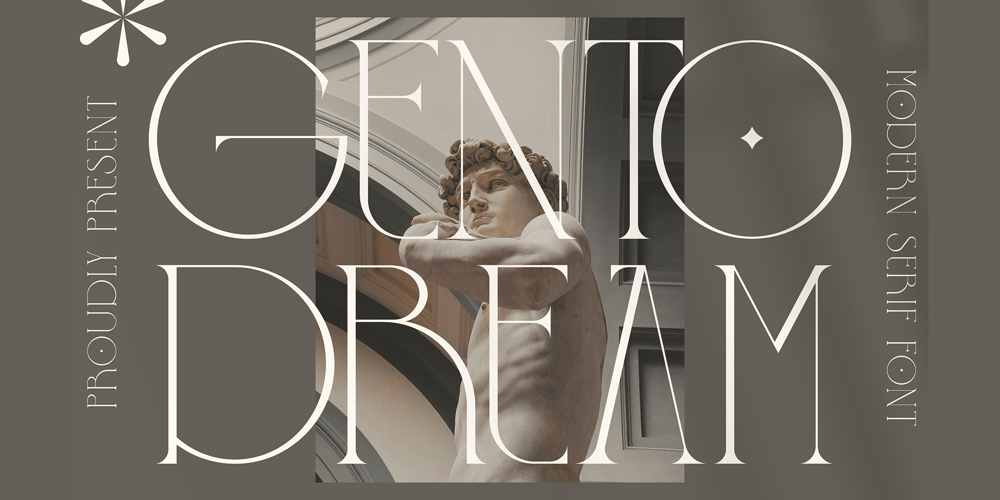
GENTO DREAM Font Family was designed by Heru Utama Putra and published by Letterena Studios. GENTO DREAM contains 2 styles and family package options. Gento Dream is a serif modern and classic typeface that has a unique style & modern look. This typeface is perfect for an elegant & luxury logo, book or movie title design, fashion brand, magazine, clothes, lettering, quotes, and so much more.